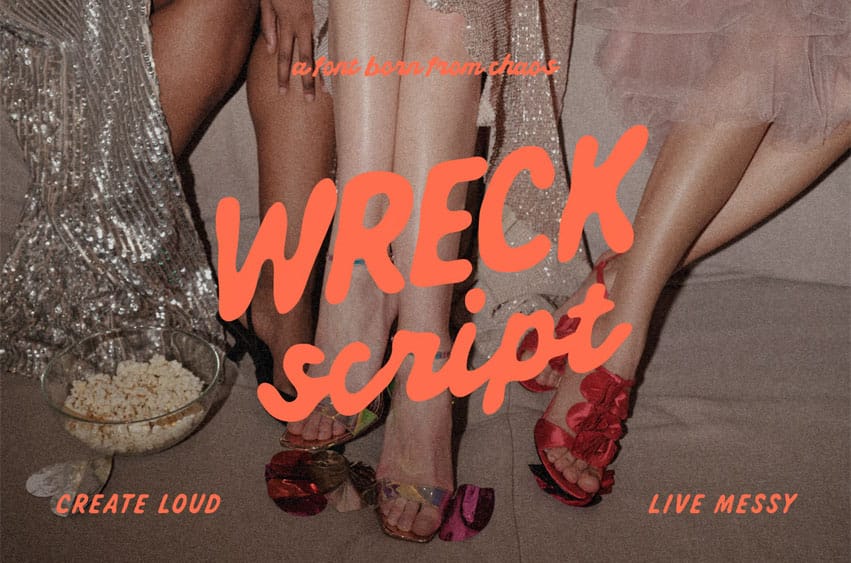
Wreck Script Font Unruly. Wild. Loud. Wreck Script is not here to behave — it’s here to be heard. With its bold curves and rebellious rhythm, this script font was designed to break the rules and take center stage. Whether you’re branding a streetwear label, designing punchy social media posts, or creating editorial graphics that speak louder than words, Wreck Script delivers unapologetically.
Vibe:
- Feminine but fierce
- Retro yet rebellious
- Playful, gritty, and perfectly imperfect
Ideal for:
- Fashion & Beauty Branding
- Editorial Layouts
- Social Media Quotes
- Poster & Album Covers
- Zines, Stickers & Merch
Words that Spark It:
“A font born from chaos.” “Bite like a lady, burn like a queen.” “Create Loud. Live Messy.”